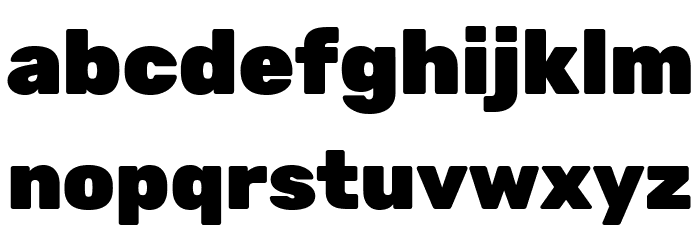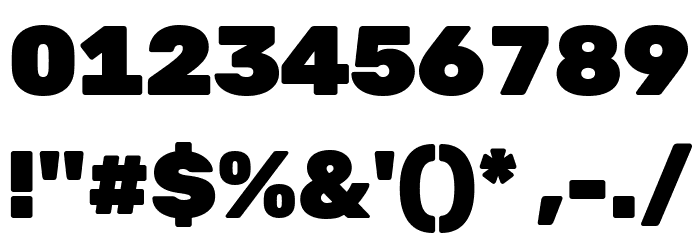
Hezaedrus Black Font
This font exhibits a bold and commanding presence with its thick, uniform strokes and solid structure. The characters are designed with a strong emphasis on clarity and impact, making it highly suitable for attention-grabbing headlines and signage. The uppercase letters are particularly robust, while the lowercase maintains a consistent weight, ensuring readability. The numerals are equally bold, providing a cohesive look across all character sets. Special characters are crafted with the same boldness, ensuring they stand out effectively. This font's design is straightforward yet powerful, making it versatile for various applications.
A bold, impactful font with thick, uniform strokes ideal for headlines.
- Proposed Projects: Perfect for branding, advertising, posters, and any project requiring strong visual impact.
- Use Case: Headlines, Logos, Signage